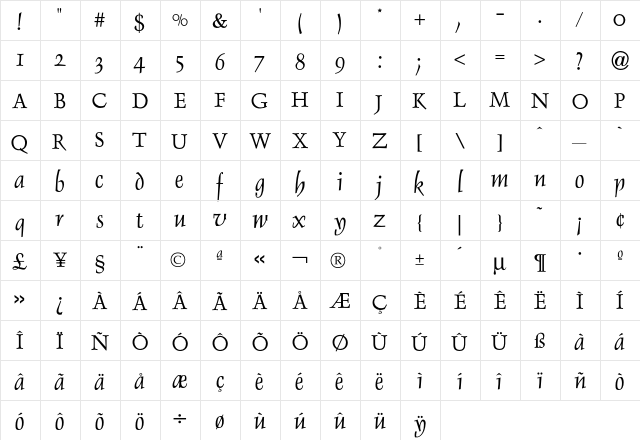
Delphin One
Design Context for Delphin Typeface
Delphin is a composed and adaptable typeface that performs quietly and consistently across a wide range of design contexts.